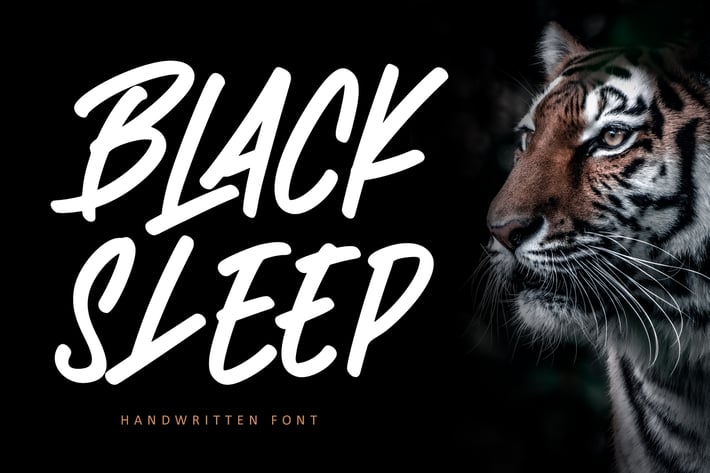
Black Sleep Advertisement Font
Blacksleep is an urban display font that has stylish curves in every stroke. It has dynamic movements that will make your design feels strong and full of spirit.